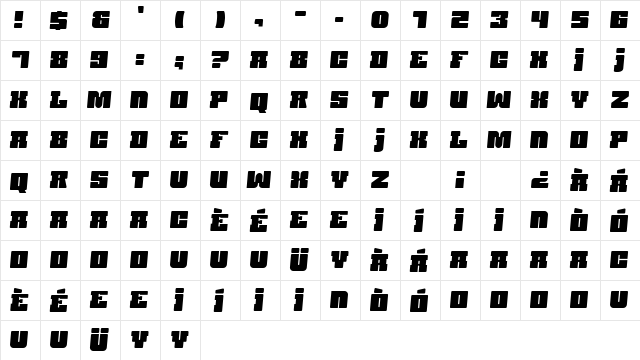
Calgary 88 Regular Font Preview
Calgary 88 Regular
Calgary 88 Regular Font Details
Design Context for Calgary 88 Typeface
Calgary 88 is a composed and adaptable typeface that performs quietly and consistently across a wide range of design contexts.